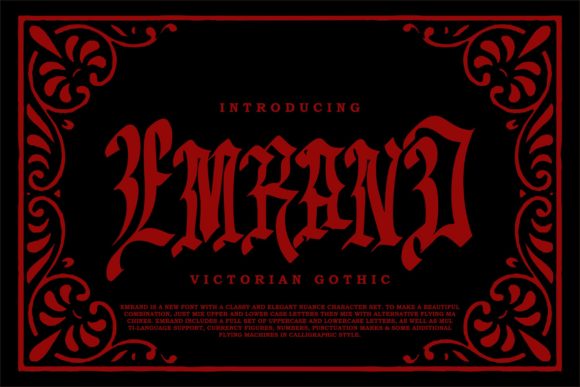
Prepare to be mesmerized by Emrand Font, a captivating blackletter font that will unleash your creativity and leave a lasting impression on your designs. This extraordinary font, crafted by the talented Vunira, is a visual masterpiece that dances across the page with its audacious and bold strokes.
Immerse yourself in the world of Emrand Font, where elegance and power collide. Its striking characters, reminiscent of ancient manuscripts, exude an aura of mystery and intrigue. Watch in awe as your words transform into intricate works of art, leaving readers spellbound.
With Emrand Font as your artistic weapon, conquer the realm of tattoo script like never before. Let your imagination run wild as you inscribe meaningful words or captivating symbols onto the skin, creating timeless masterpieces that tell unforgettable stories.
Unleash the full potential of Emrand Font and witness the transformation of your creative projects. From logos that command attention to posters that ignite emotions, this font will elevate your designs to new heights of artistry.